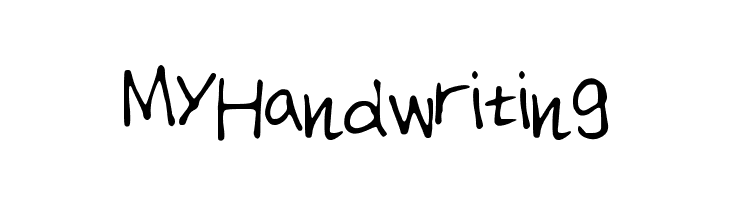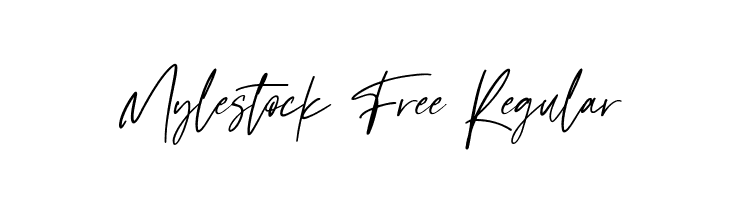
A casual, handwritten-style font with smooth, rounded strokes.
A decorative, cursive font with elegant, flowing strokes.
A sketch-like, hand-drawn font with overlapping strokes and a playful style.
A modern, elegant handwritten font with fluid and cursive letterforms.
A bold, brush-style script font with a playful and energetic vibe.
A whimsical script font with heart motifs and elegant cursive flow.
An elegant script font with flowing, cursive letters and a romantic feel.